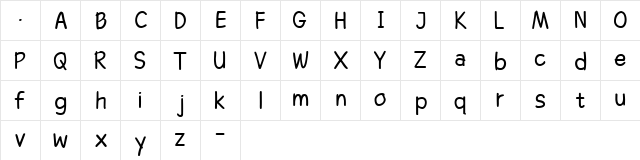
Brother Janu - DEMO Regular
| Designer | Gali S Aji |
Design Context for Brother Janu - DEMO Typeface
Brother Janu - DEMO takes a measured approach to typography — its balanced proportions and neutral character make it a reliable workhorse for both digital and print work.